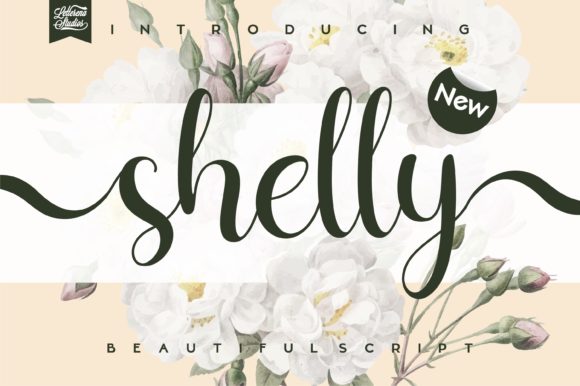
Behold, the Shelly Font - an elegant fusion of classic beauty and contemporary charm, inviting you to immerse yourself in a world of enchanting typography.
Picture this: a manuscript penned with the grace of a bygone era, yet alive with a spirit of modernity. Shelly Font effortlessly blends these elements, evoking nostalgia and a timeless appeal in your designs.
This meticulously crafted script font is a testament to the artistry of Letterena Studios. Its flowing lines mimic the natural rhythm of handwriting, capturing the essence of human touch in every character. Discover the allure of connecting letters, graceful swashes, and elegant ligatures that dance across your screen, adding a touch of sophistication to your creative endeavors.
Unleash your creativity with the versatility of Shelly Font. Its PUA encoding grants you effortless access to an array of glyphs and swashes, allowing you to effortlessly incorporate intricate details and flourishes into your designs. Experiment with stylish logos, heartfelt invitations, captivating social media posts, and breathtaking branding that radiates elegance and individuality.
Immerse yourself in the world of Shelly Font and weave a tapestry of typographic artistry. Elevate your designs to new heights of beauty and sophistication, leaving an indelible mark on your audience.
Step into the realm of enchantment with Shelly Font, where classic elegance meets contemporary charm. Let your imagination soar as you craft designs that captivate and inspire.